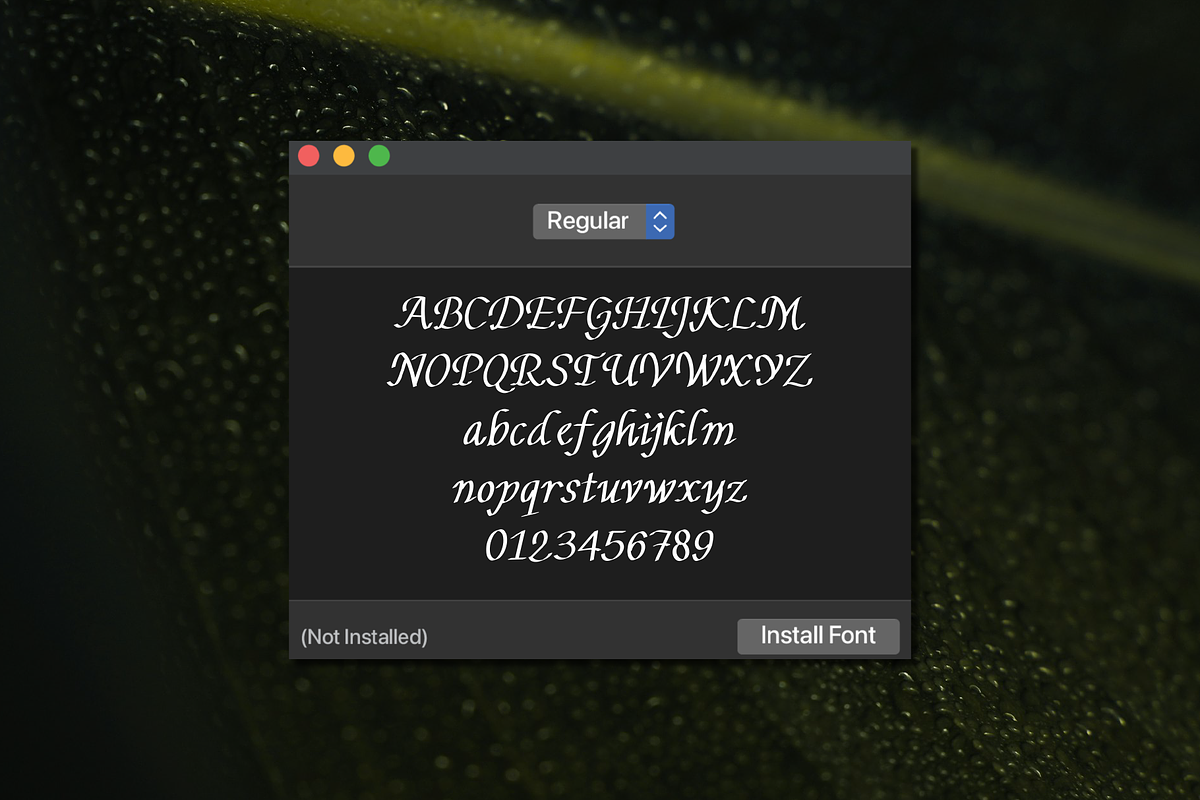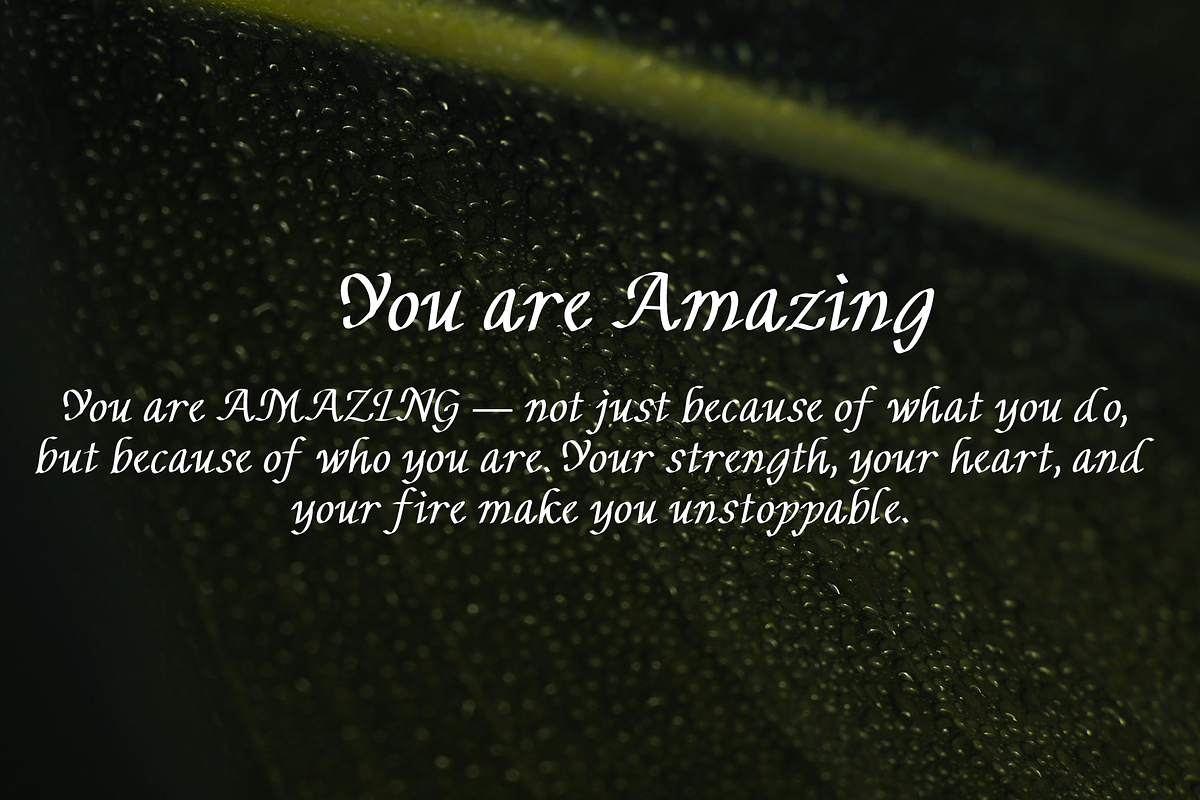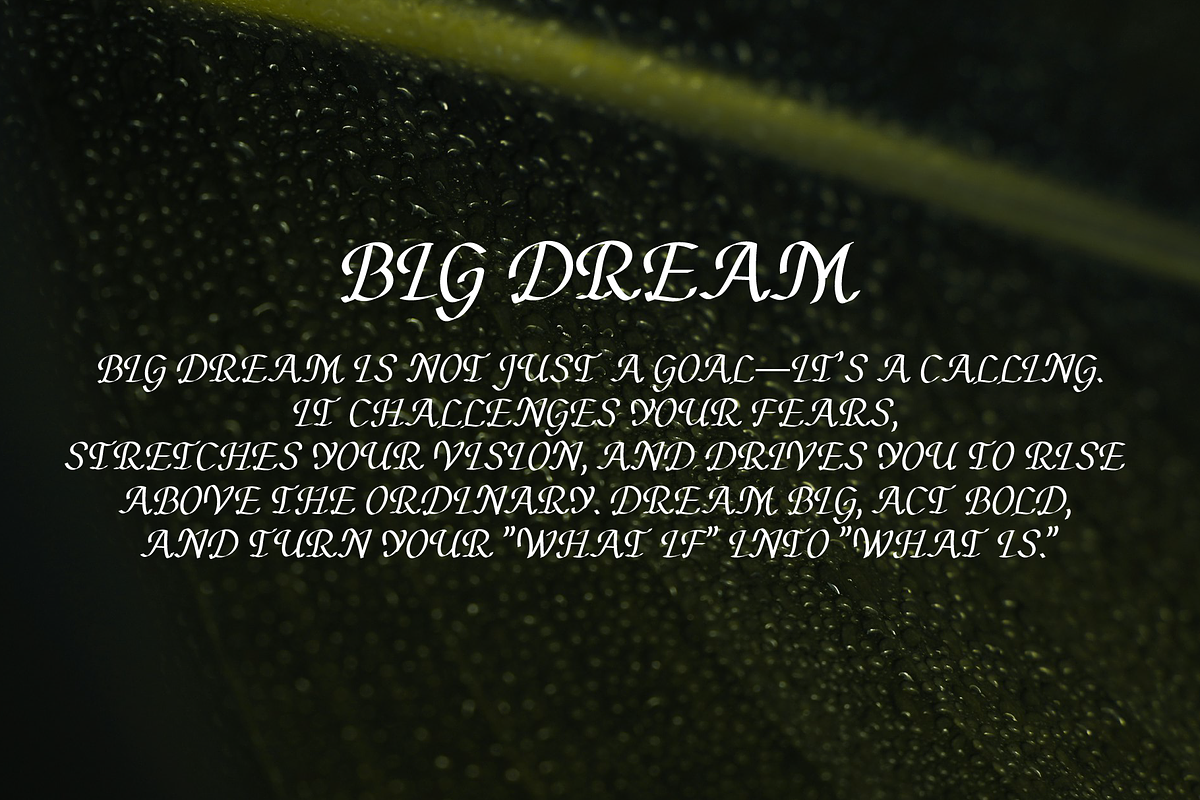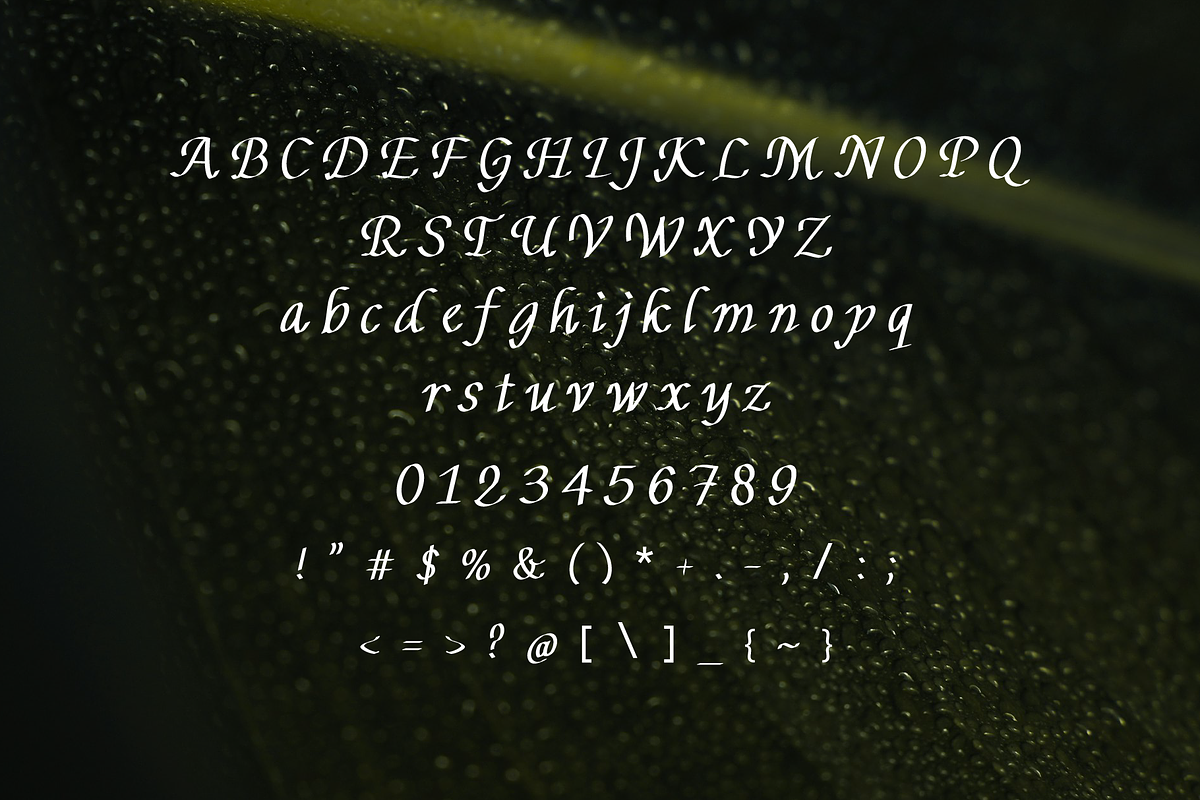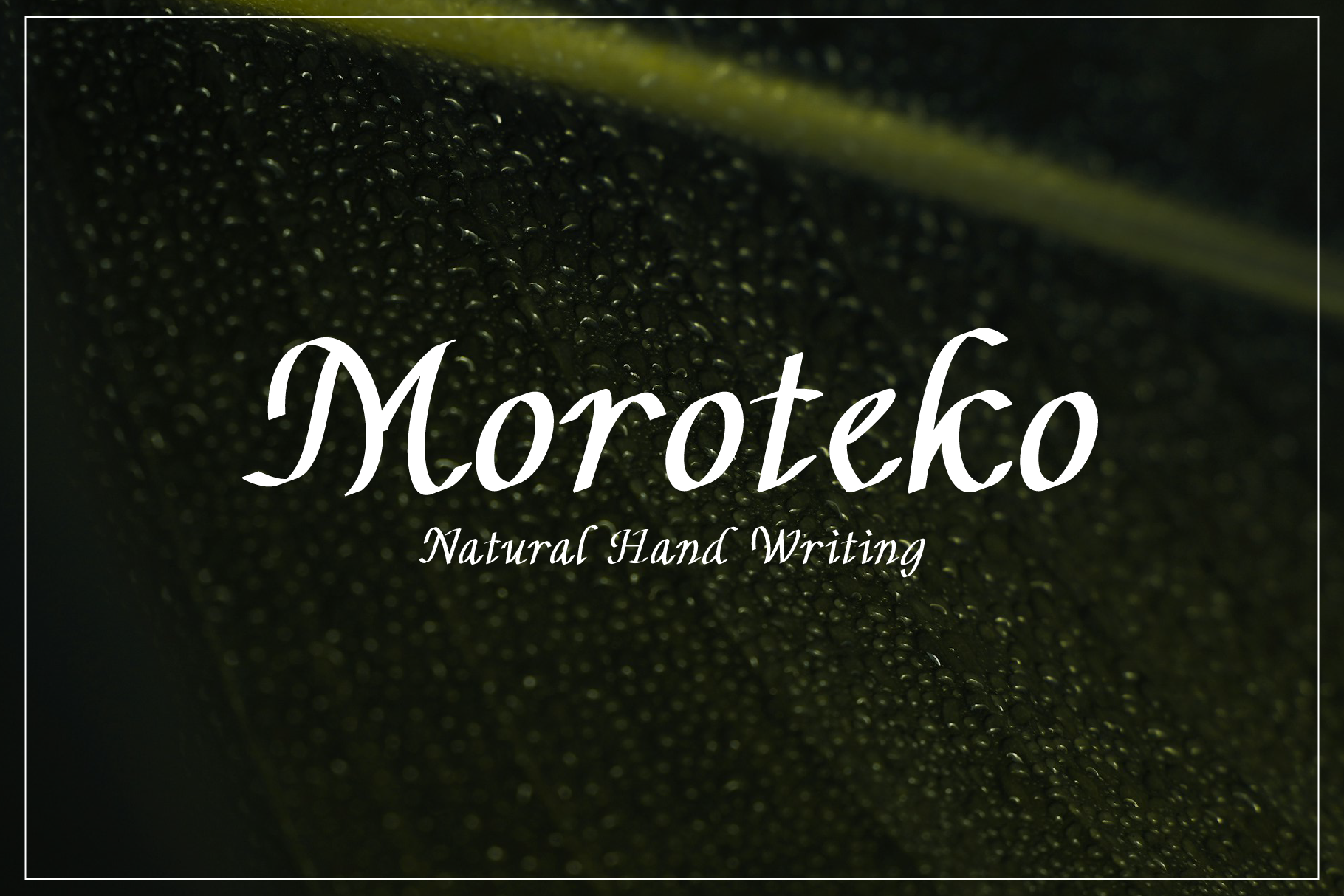
Moroteko Natural Handwriting Font
Moroteko is a new addition to the world of typography. This font is casual, friendly, and perfect for any kind of creative endeavor you may be using.
Contains all capital letters, numbers, and basic punctuation.